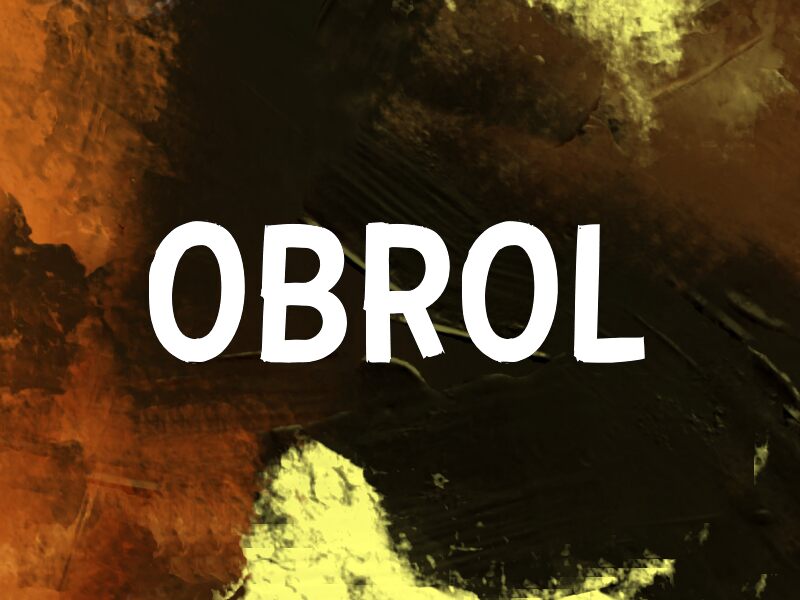
OBROL
Obrol font by wep is a free cartoon display typeface that feels like it’s been brushed straight onto paper—thick, inky, and just a little wobbly in all the right ways. The letters are bold and chunky, with soft, uneven edges that give them a friendly, handmade character. It has the weight of a marker pen poster, but with enough structure to stay legible even when packed into tight layouts.
Using Obrol font, you get a loud, playful voice that shines on comic titles, kids’ book covers, classroom posters, YouTube thumbnails, stickers, and festival branding. The loose shapes and black-solid fills grab attention instantly, especially at larger sizes where the texture really shows. This free font pairs nicely with a clean geometric sans for body text—let Obrol handle the headlines while the simpler companion keeps things readable below.